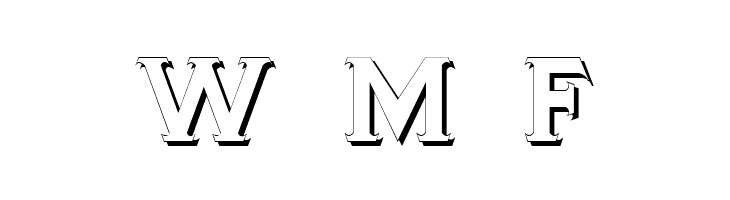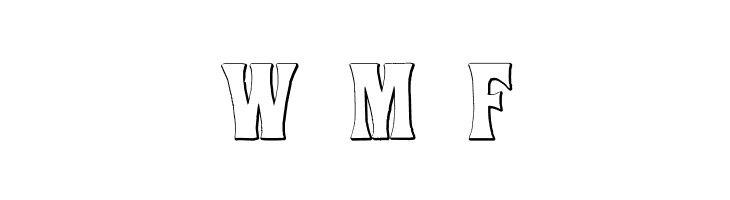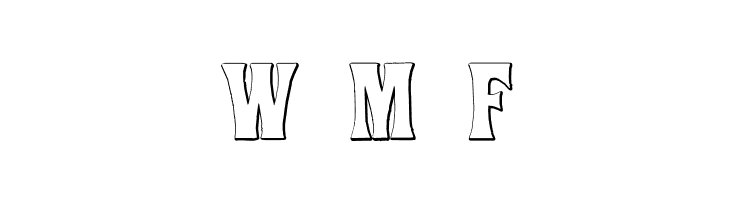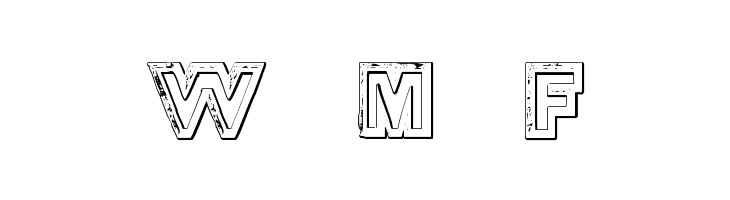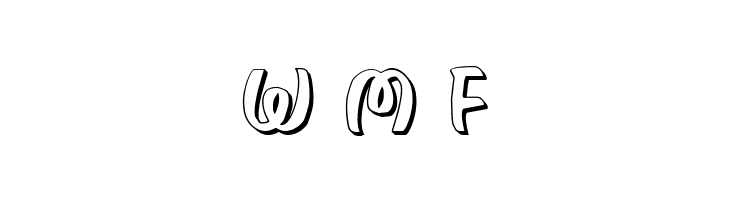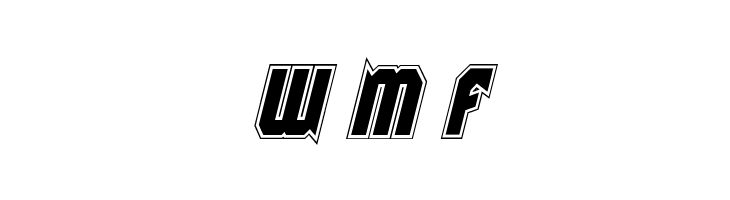
A bold, shadowed font with a three-dimensional effect, perfect for impactful designs.
A bold, outlined font with a playful, three-dimensional effect.
A bold, decorative font with a playful, mechanical design and three-dimensional effect.
A bold, playful font with a three-dimensional shadow effect.
A bold, shadowed font with a three-dimensional effect, perfect for headlines.
A bold, angular, italic font with a dynamic, three-dimensional style.